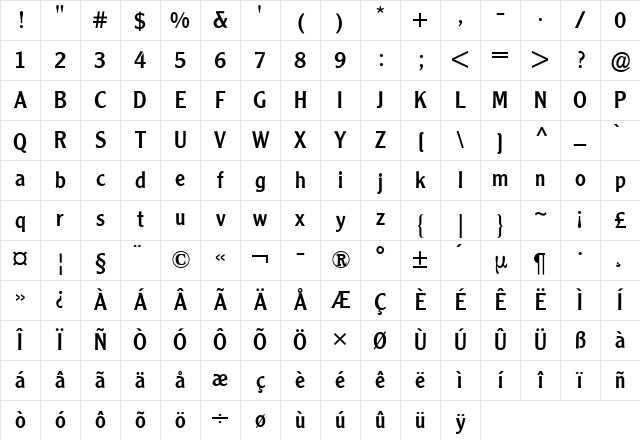
Clearface Gothic BQ Regular
Design Context for Clearface Gothic BQ
Clearface Gothic BQ takes a clean, functional approach - its unadorned letterforms prioritise legibility and work reliably across screen and print environments.
Font Pairing: Works well alongside a characterful serif or display font that can carry the expressive load while Clearface Gothic BQ handles the functional copy.
Pro Tip: Use Clearface Gothic BQ for UI labels, navigation, and short-form body copy where clean legibility is the priority.
Who designed the Clearface Gothic BQ Regular font?